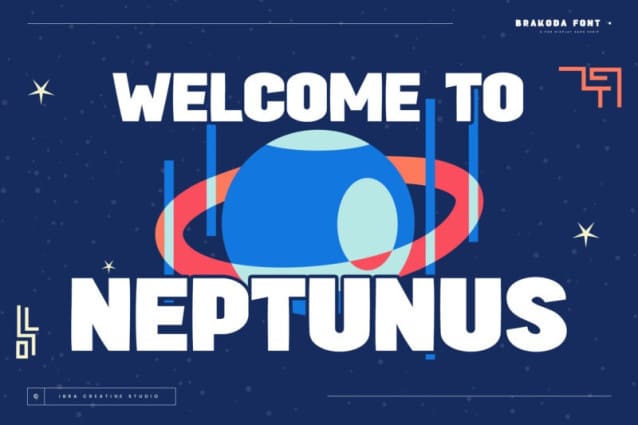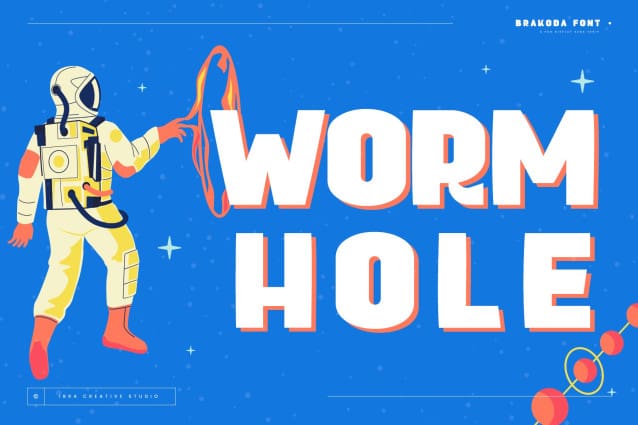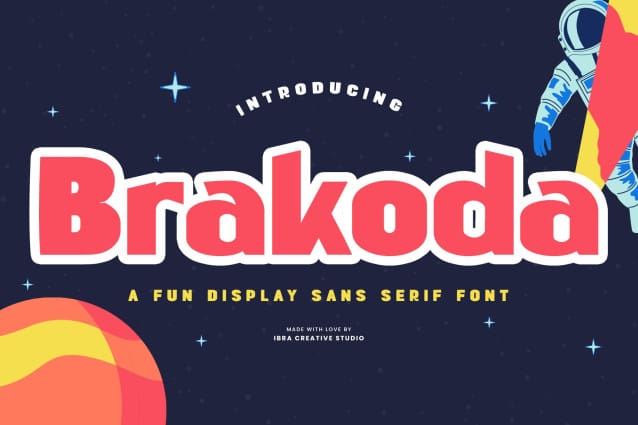
Brakoda Font
Brakoda Font is a delightful sans-serif typeface that effortlessly combines playfulness with a clean and modern aesthetic. Its lively and quirky letterforms exude a sense of fun, making it a perfect choice for projects that aim to capture a youthful and dynamic spirit. With a balanced blend of rounded curves and straight lines, Brakoda maintains readability while infusing a sense of whimsy, making it a versatile choice for a wide range of design applications, from branding and headlines to digital interfaces and creative marketing materials.